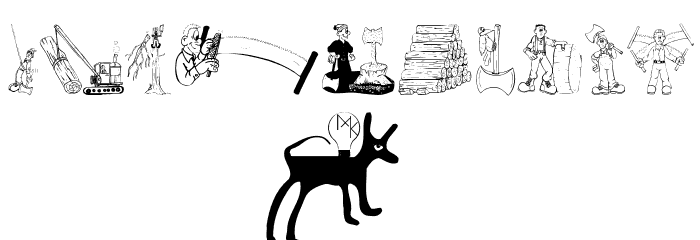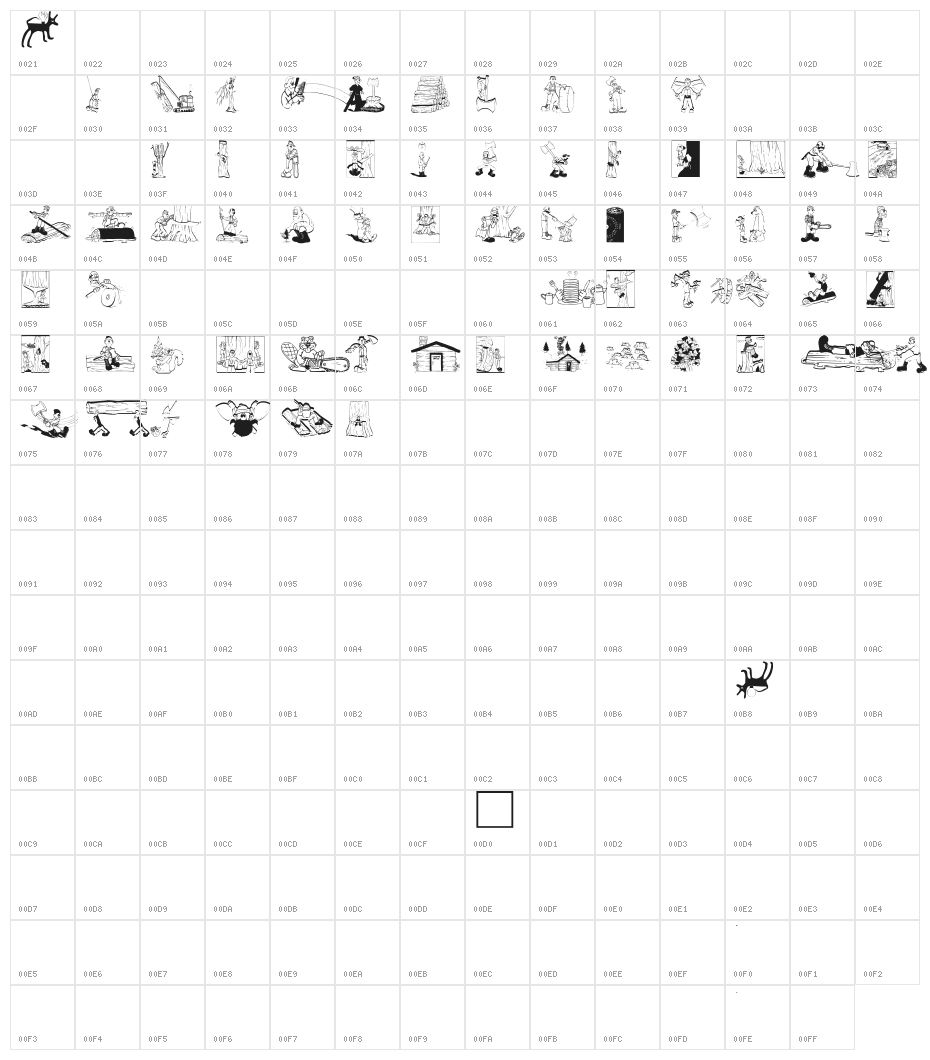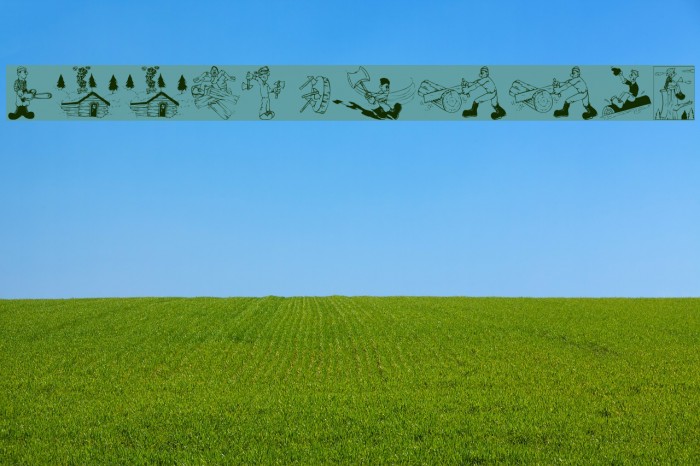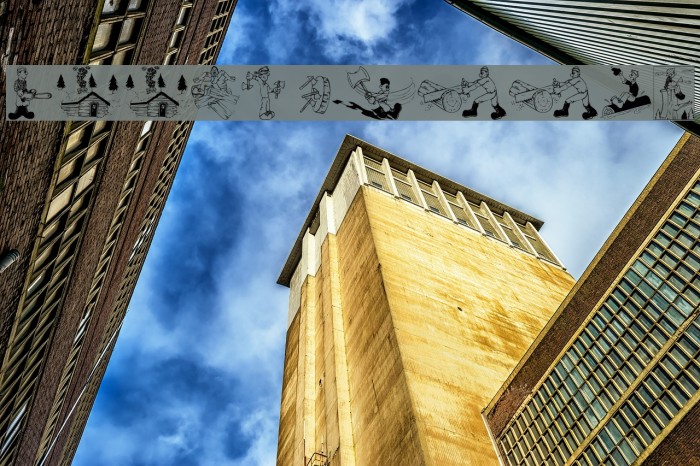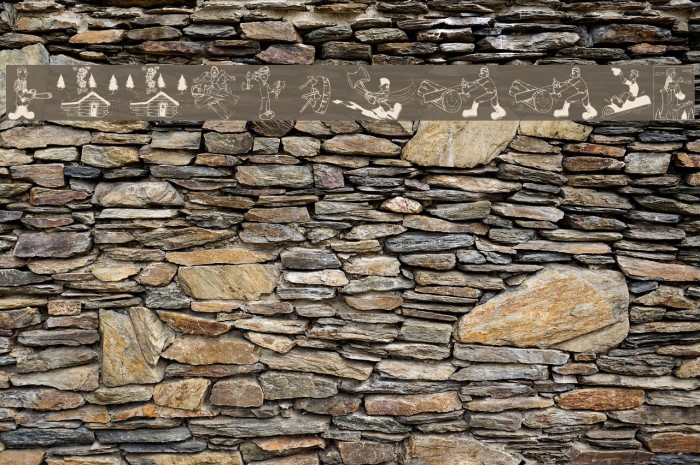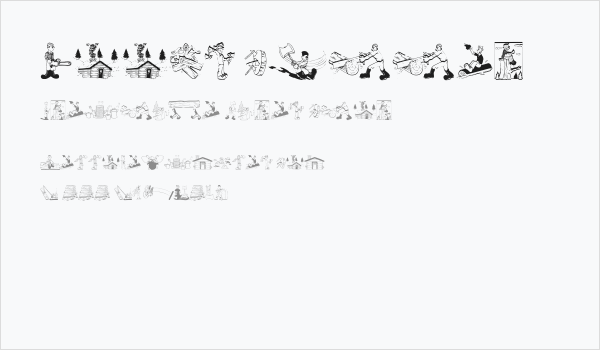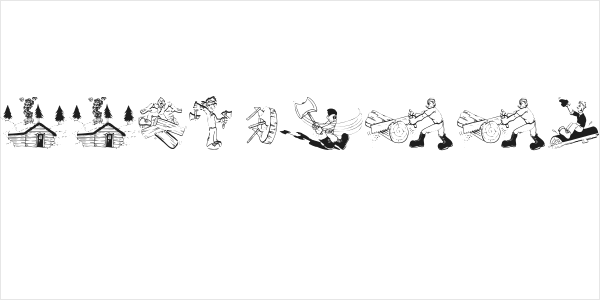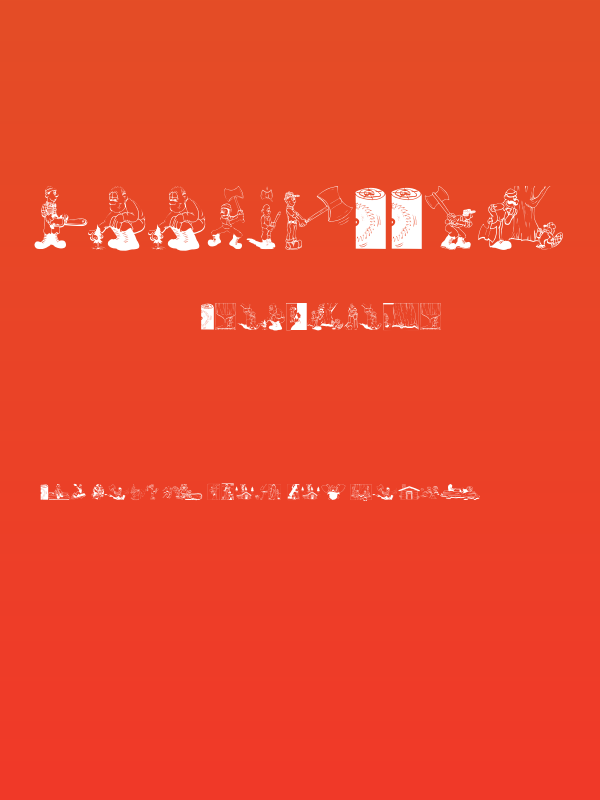
Woodcutter Font
Woodcutter Description
A highly decorative and illustrative font where each character is represented by a detailed cartoon-like drawing related to woodcutting, forestry, or lumberjack activities. The glyphs are complex, with each letter or symbol depicted as a unique scene or character, making legibility secondary to visual storytelling.
| Overall Style | Decorative, Cartoonish, Thematic |
| Use Case | Logos, Posters, Headlines, Themed graphics |
| Proposed Projects | ChildrenΓ’β¬β’s books, themed posters, event flyers, educational materials, novelty branding. |